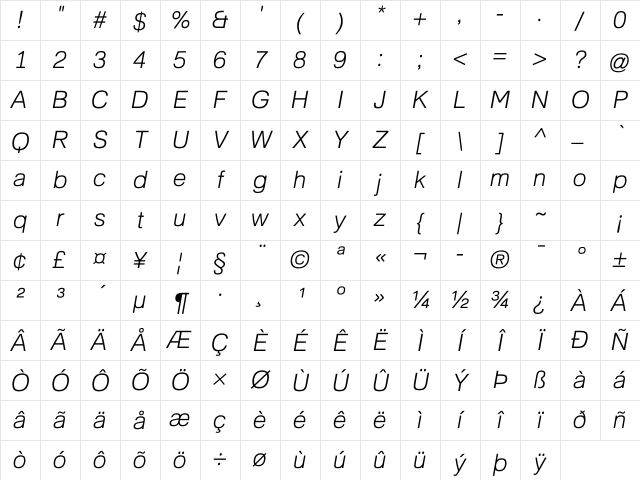
Foundry: Roger S. Nelsson
Designer: Roger S. Nelsson
Design Context for FamiliarPro-LightOblique
FamiliarPro-LightOblique is a composed and adaptable typeface that performs quietly and consistently across a wide range of design contexts. The slanted form adds forward momentum and visual energy. Its slender proportions lend an understated elegance to any composition.